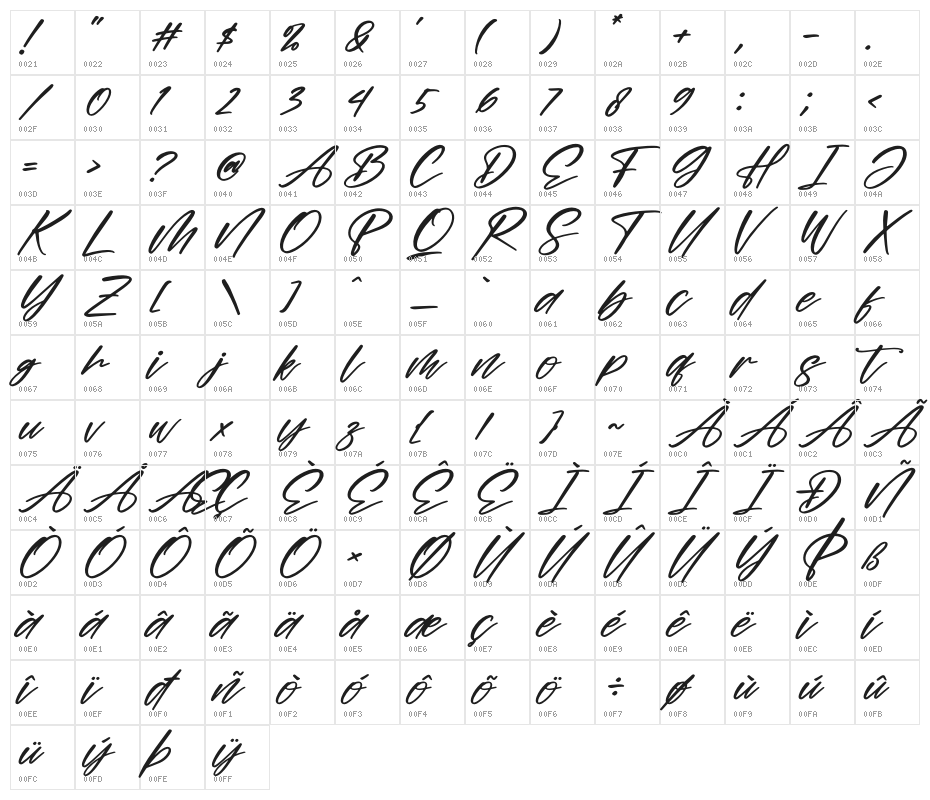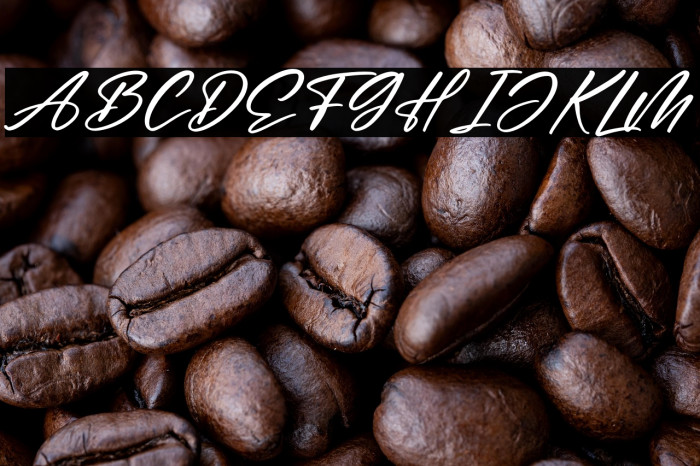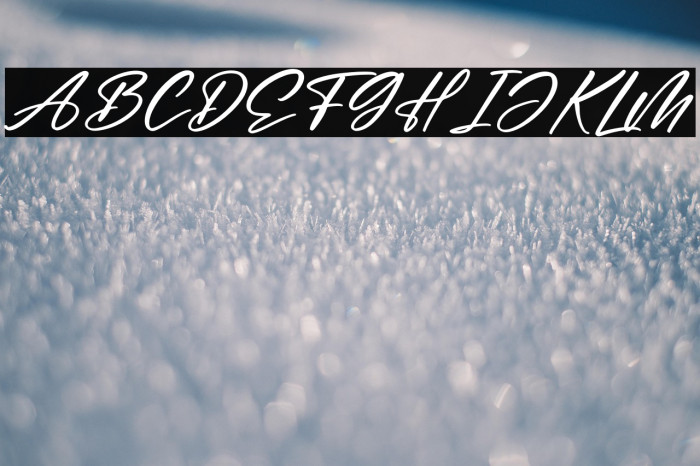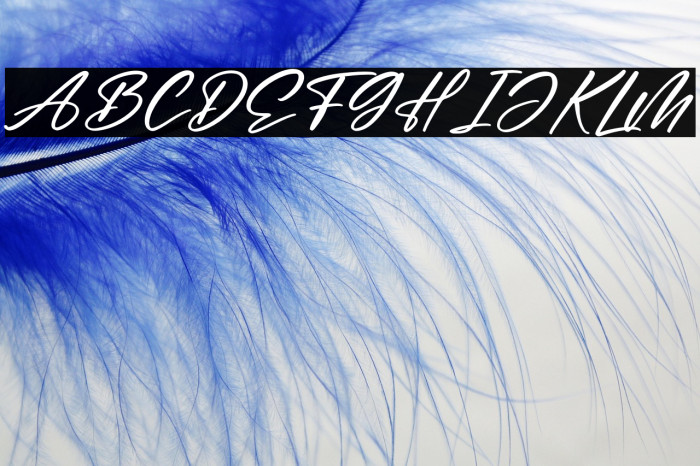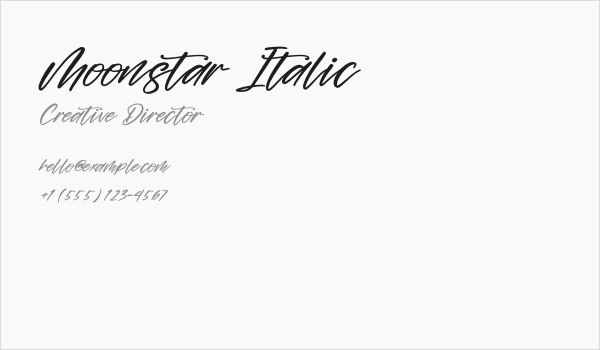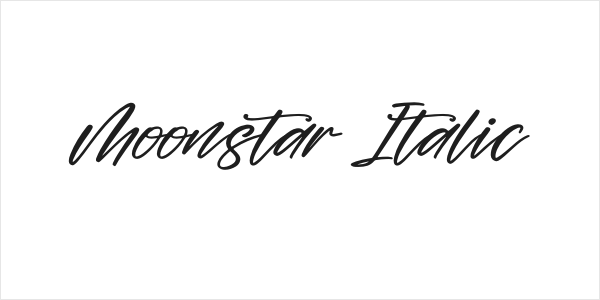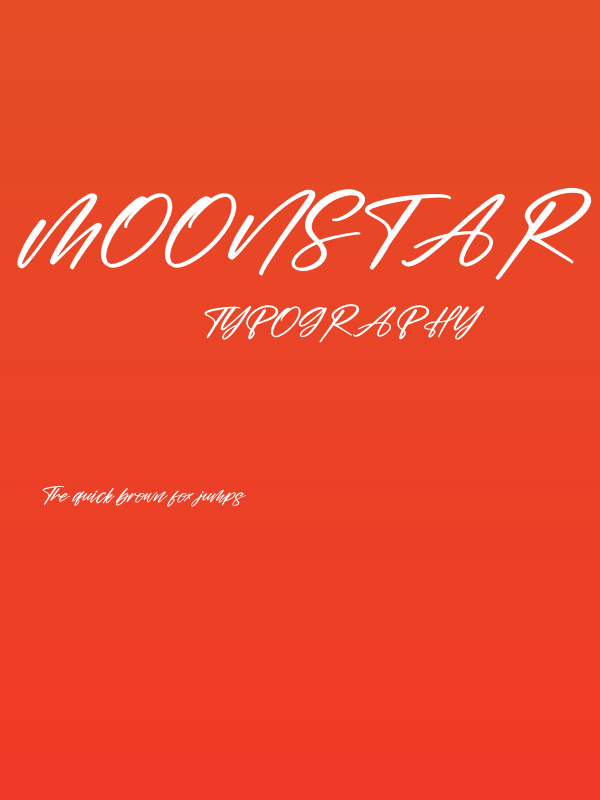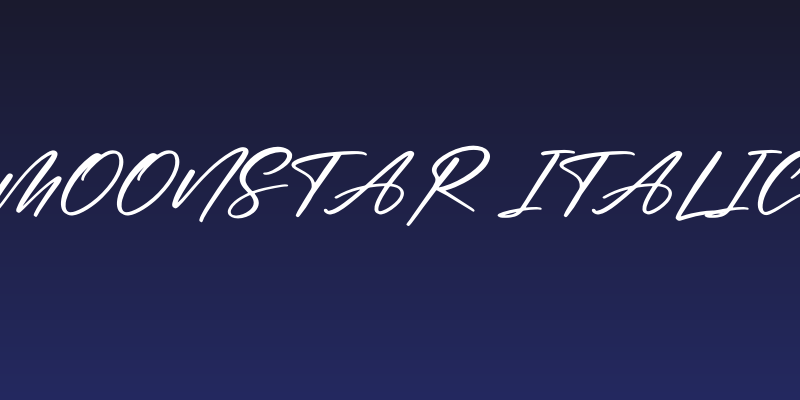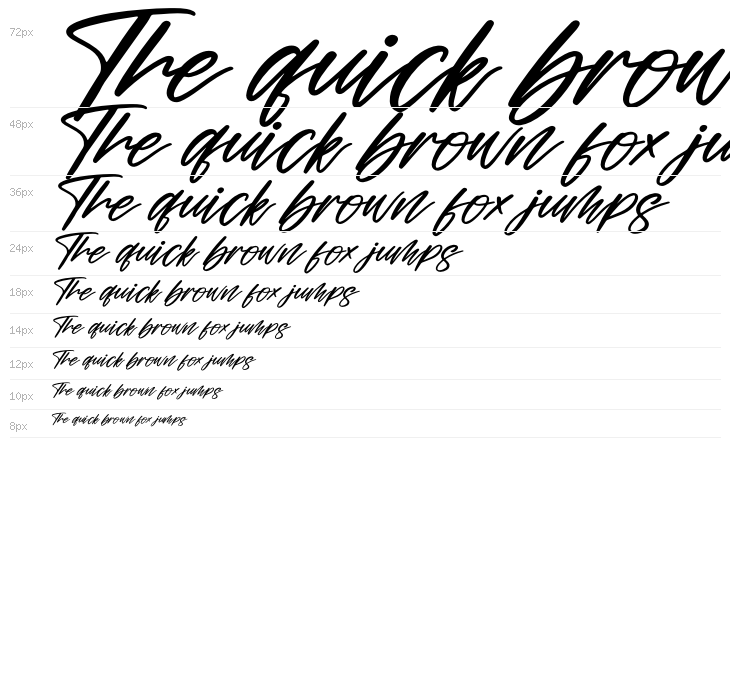
Moonstar Italic Font
Moonstar Italic Description
This font features a dynamic and fluid script style, characterized by its slanted, italicized form that mimics natural handwriting. The letters are connected in a flowing manner, creating a sense of movement and elegance. The strokes are bold and confident, with varying thickness that adds a lively rhythm to the text. This font exudes a modern and stylish vibe, making it suitable for creative and expressive projects. The characters are well-spaced, ensuring readability while maintaining an artistic flair.